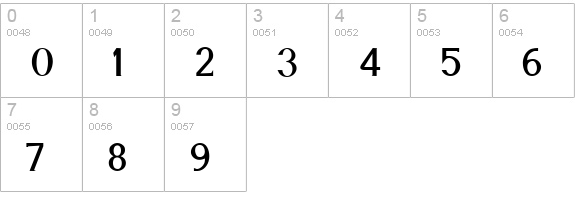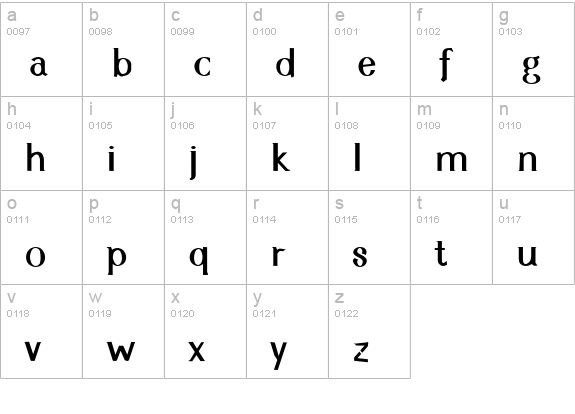
Cyn Regular Bold is the standard, neutral variant in the Cyn typeface family \xE2\x80\x94 well suited to general body text, paragraphs, and standard typographic work.
Introducing Cyn Regular Bold font, a stunning typeface that exudes confidence and strength. This font is perfect for creating impactful headlines, logos, and branding materials. With its bold and powerful design, Cyn Regular Bold commands attention and leaves a lasting impression. Featuring clean lines, sharp edges, and a modern aesthetic, this font is versatile and can be used across various design projects. Whether you're designing a website, crafting a poster, or creating social media graphics, Cyn Regular Bold will add a touch of boldness and sophistication to your work. But what sets Cyn Regular Bold font apart is its accessibility. It is freely available to download at FontsMarket.com, making it accessible to designers and creatives from all walks of life. You no longer have to worry about breaking the bank to access high-quality fonts; Cyn Regular Bold is here to make your design dreams a reality. Not only is Cyn Regular Bold font visually stunning, but it is also incredibly easy to work with. Its well-crafted letterforms ensure legibility and readability even at smaller sizes, making it suitable for both print and digital mediums. The attention to detail in this font is evident, as each character is meticulously designed to create a cohesive and visually appealing typeface. With Cyn Regular Bold font, you can elevate your designs and make a lasting impression. Its boldness and modernity will captivate your audience and convey your message with confidence. So why wait? Head over to FontsMarket.com and download Cyn Regular Bold font today, and unlock a world of design possibilities.